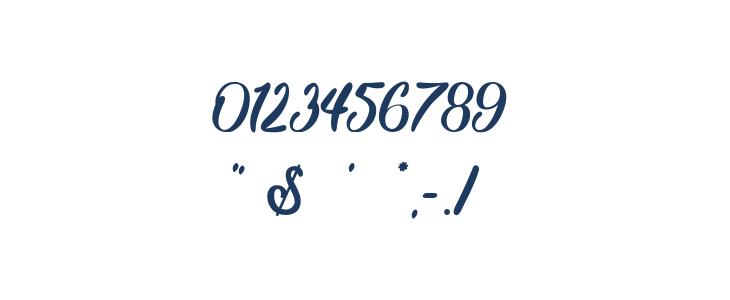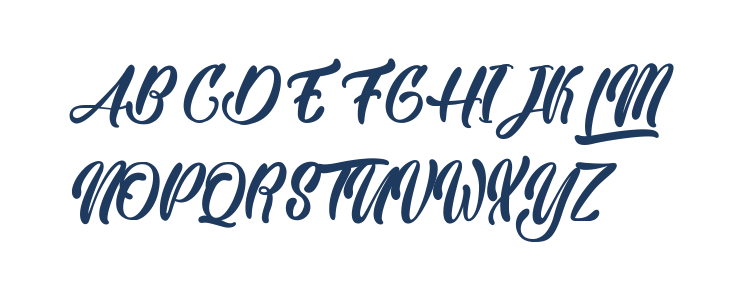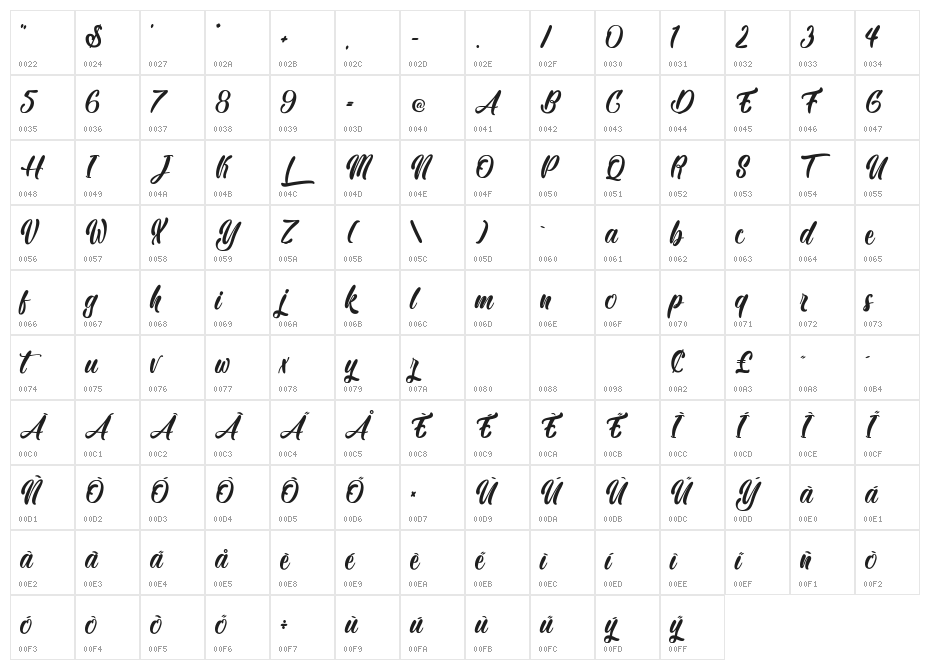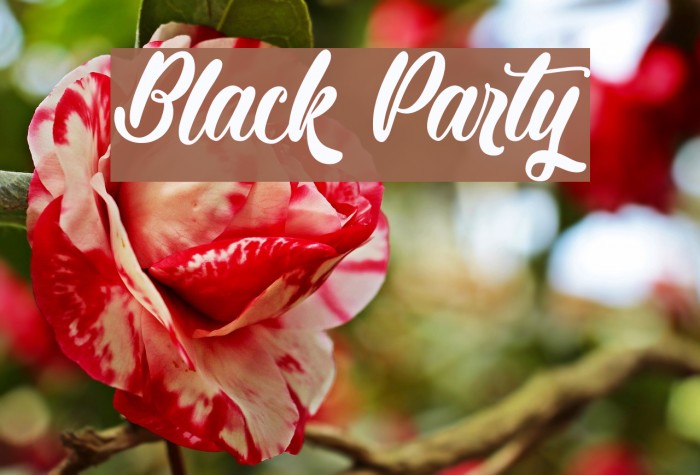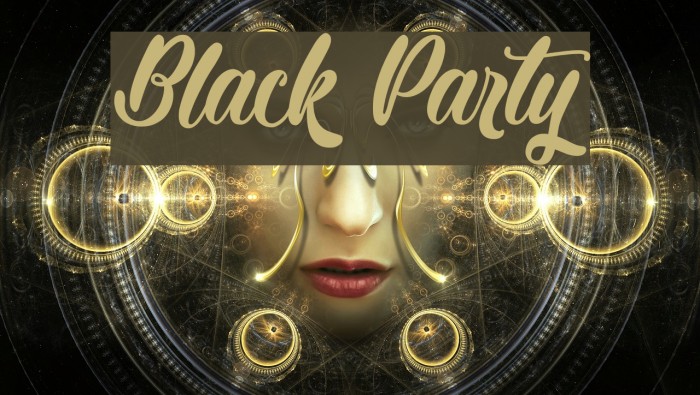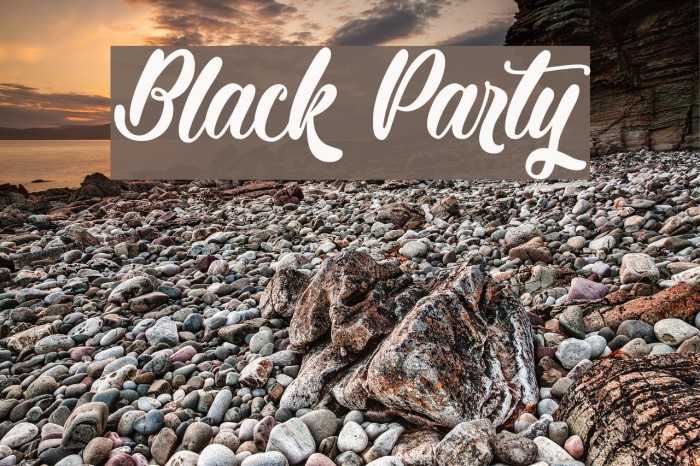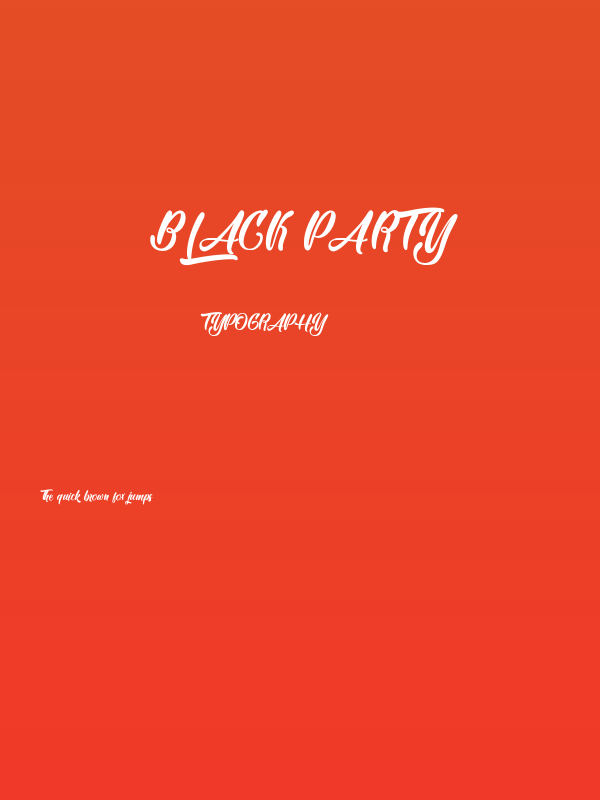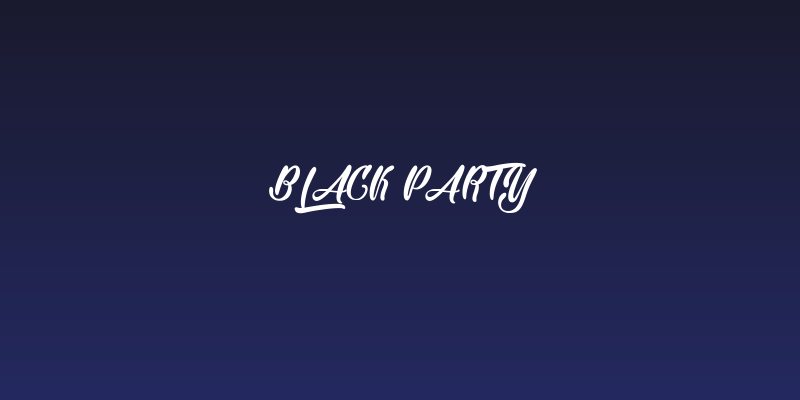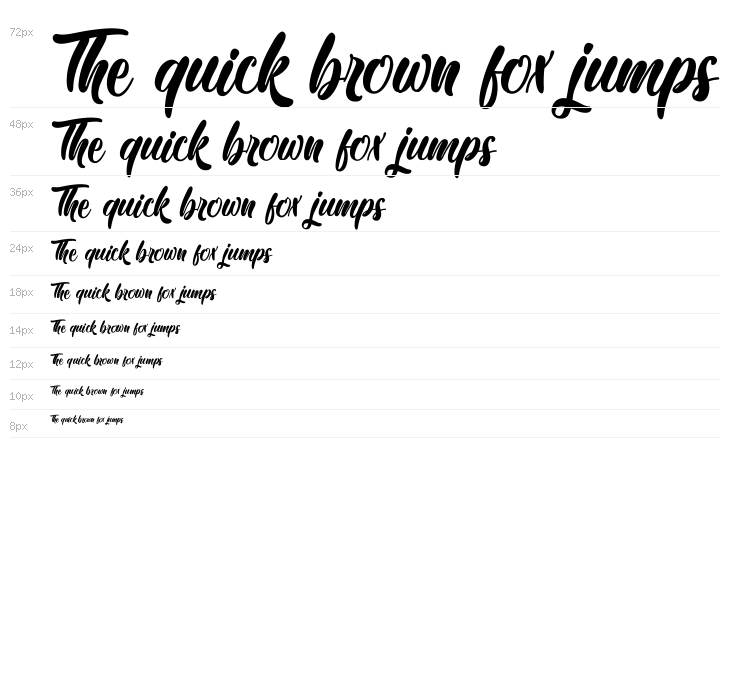
Black Party Font
Black Party Description
This font features a bold, flowing script style that exudes elegance and sophistication. The characters are intricately designed with smooth curves and a consistent stroke width, giving it a cohesive and polished appearance. The uppercase letters are particularly ornate, with sweeping lines and flourishes that add a touch of drama. The lowercase letters maintain a harmonious balance, complementing the uppercase with their graceful loops and rounded forms. The numerals and special characters are crafted with the same attention to detail, ensuring a seamless integration across all text elements. This font is ideal for projects that require a touch of class and personality.
| Proposed Projects | Ideal for wedding invitations, luxury branding, greeting cards, and elegant signage. |